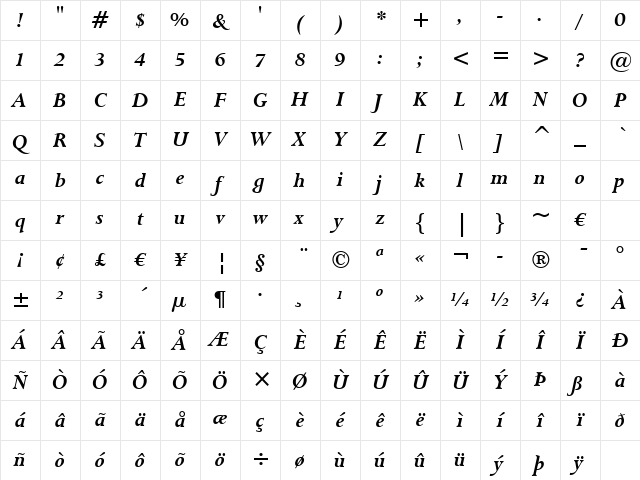
Lapidary333 BT Bold Italic
Lapidary333 BT Family
Lapidary333 BT Bold Italic
Design Context for Lapidary333 BT
Lapidary333 BT is a composed and adaptable typeface that performs quietly and consistently across a wide range of design contexts. The slanted form adds forward momentum and visual energy. Its bold stroke weight gives it real presence on the page.